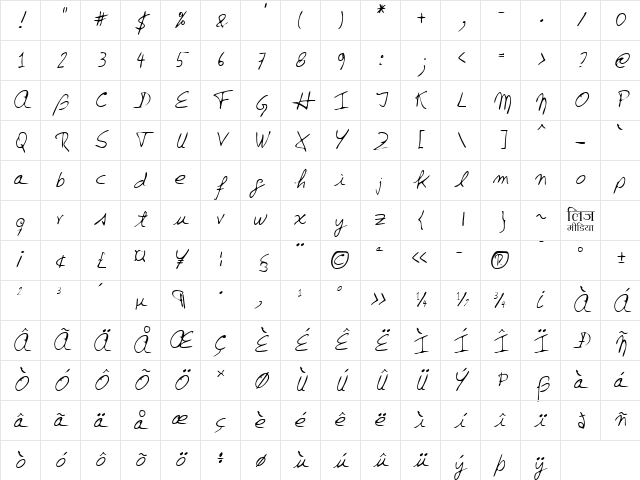
LEHN142 Regular Free Font
LEHN142 Regular
Design Context for LEHN142
LEHN142 is a composed and adaptable typeface that performs quietly and consistently across a wide range of design contexts.